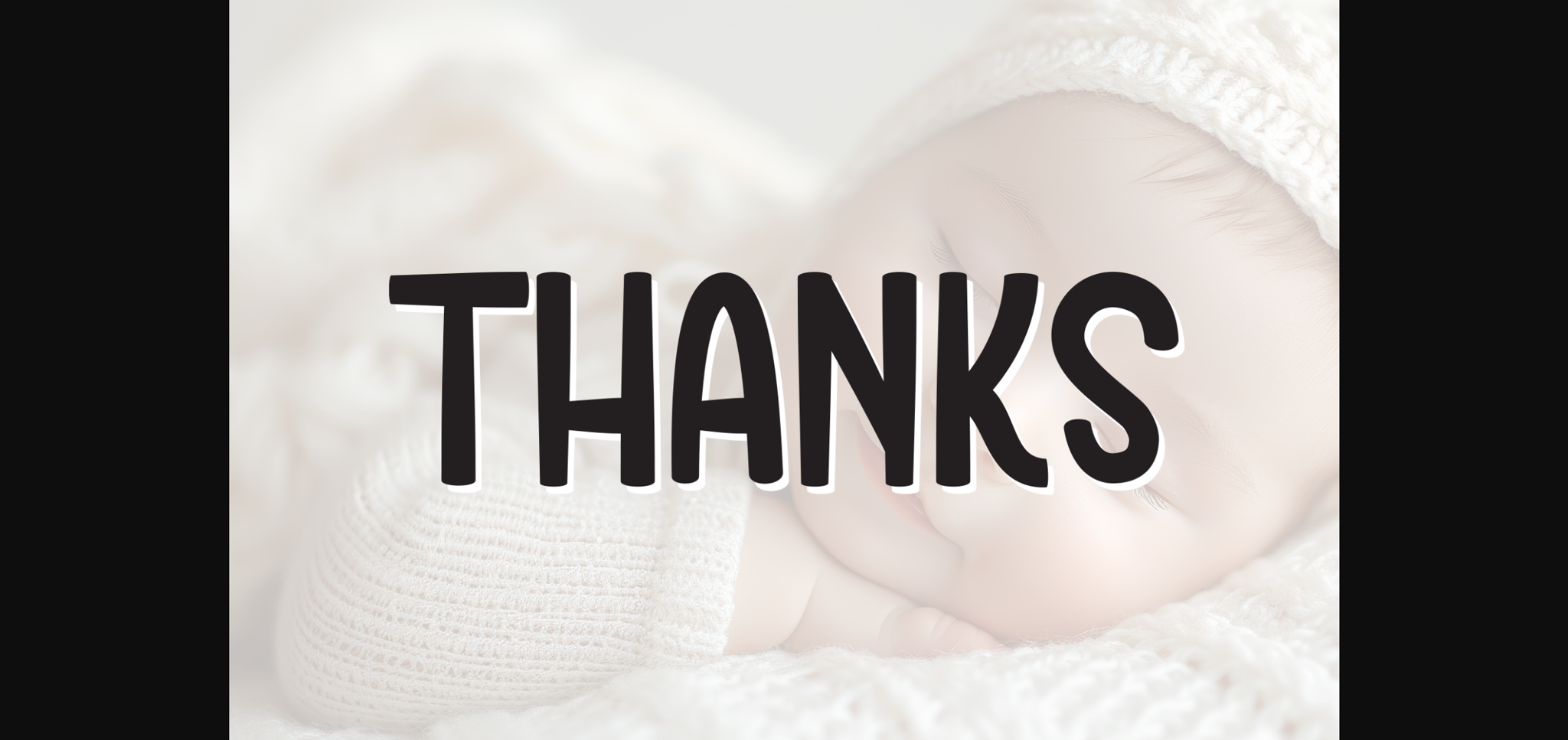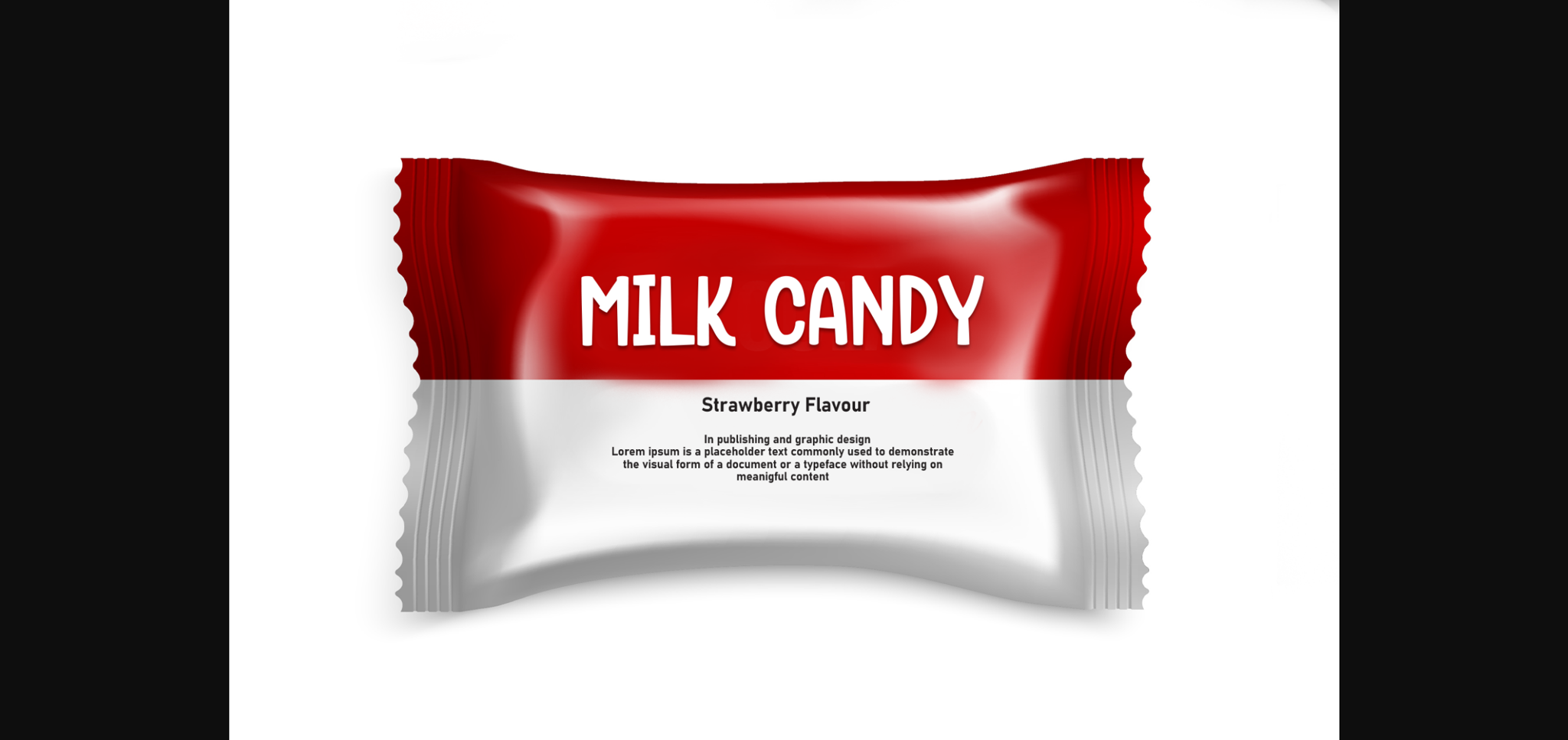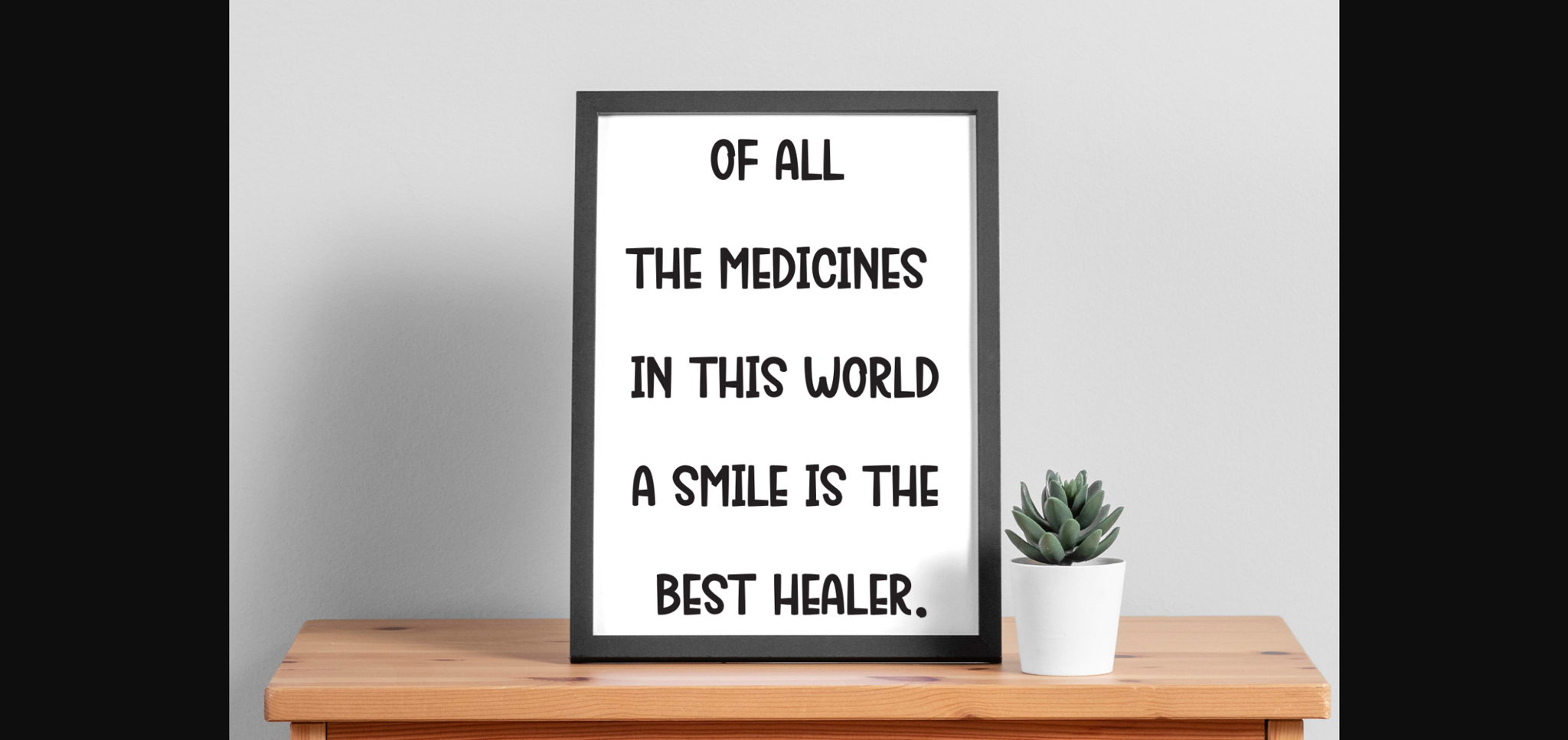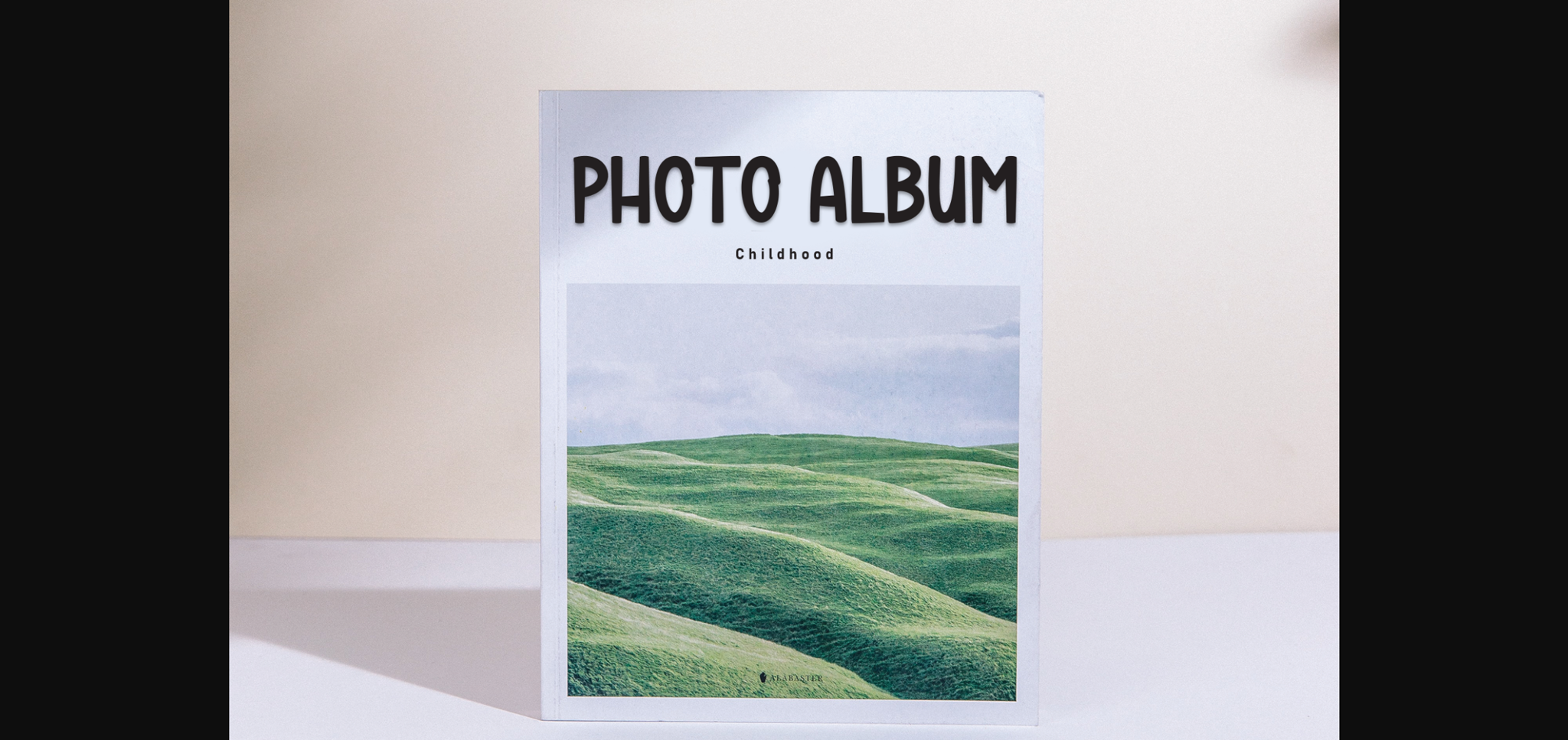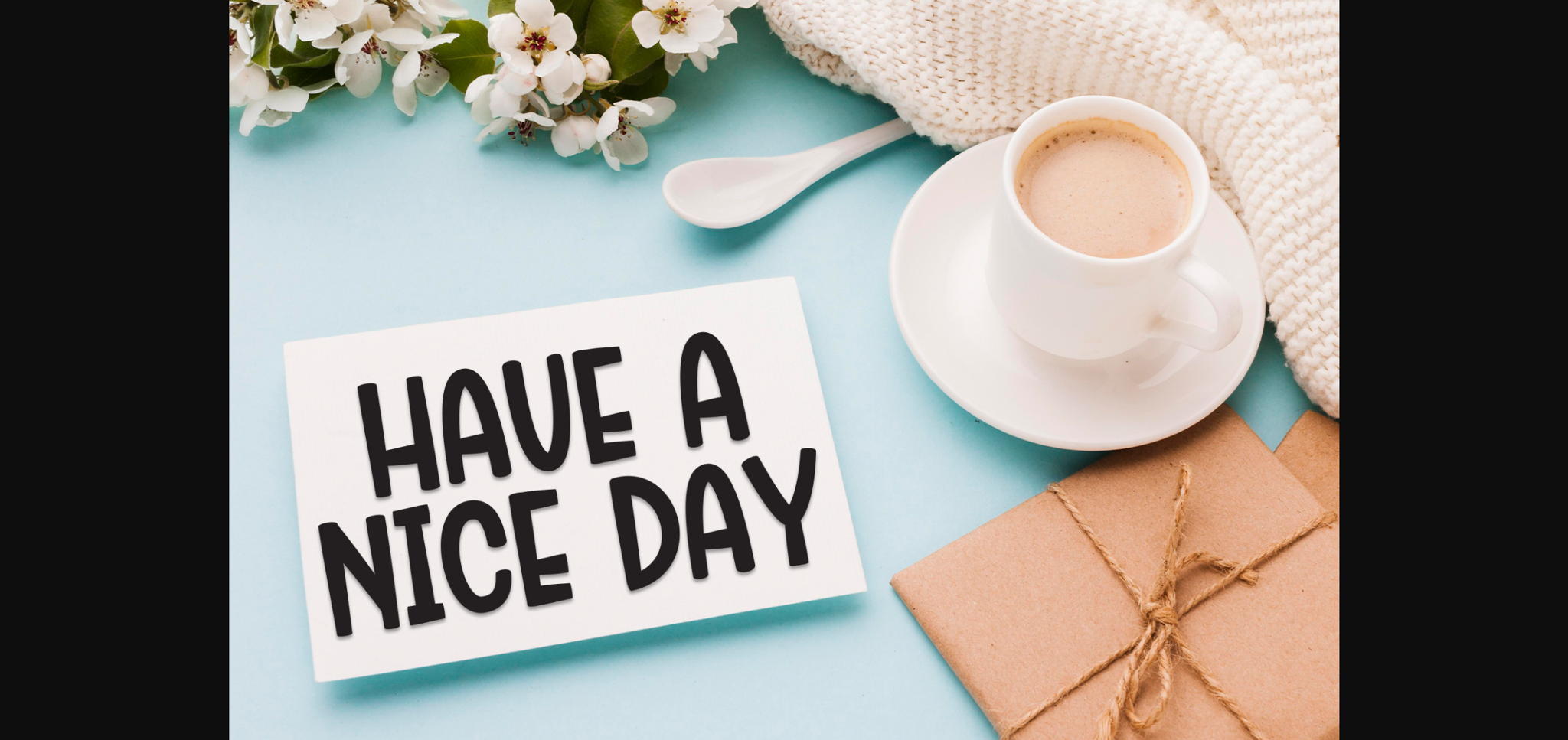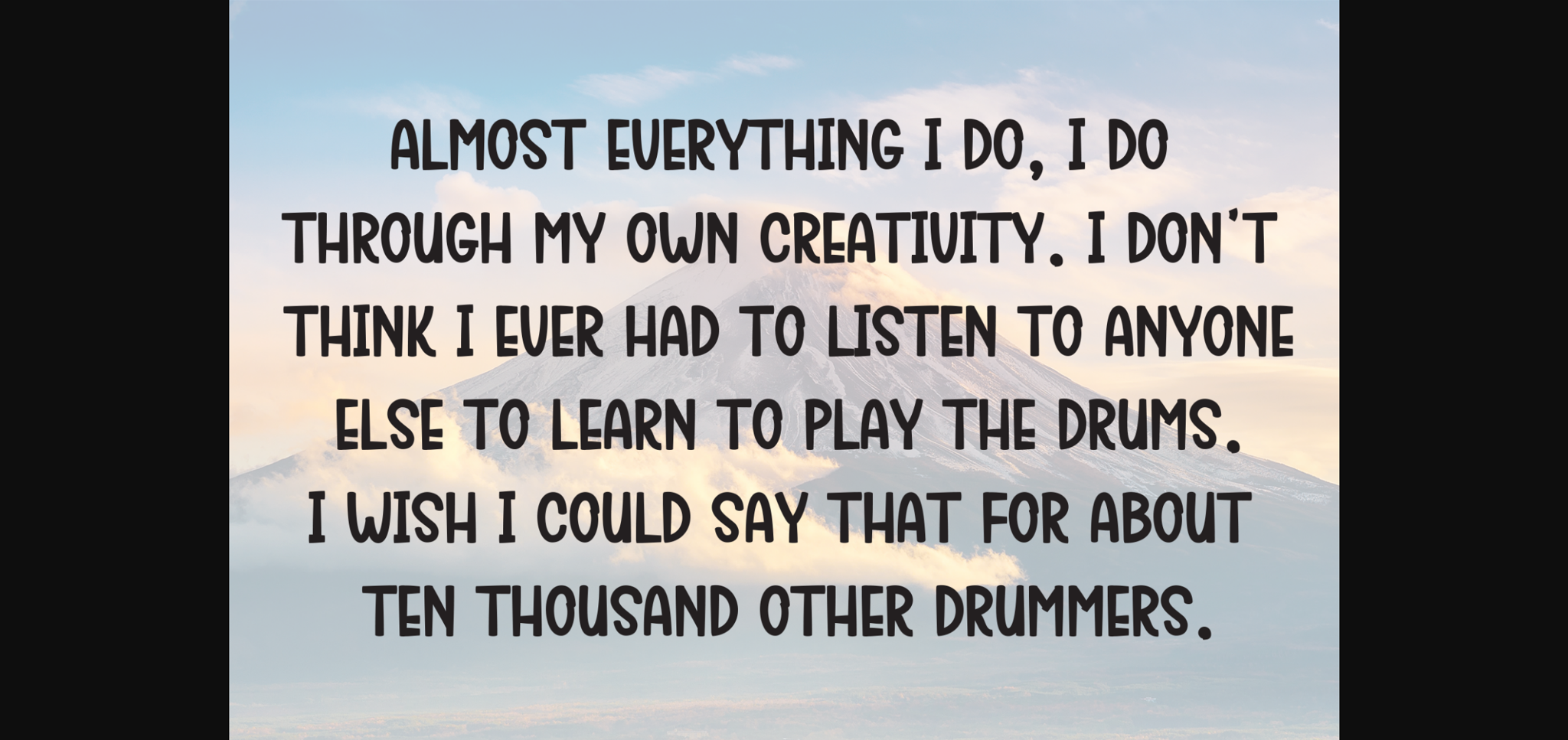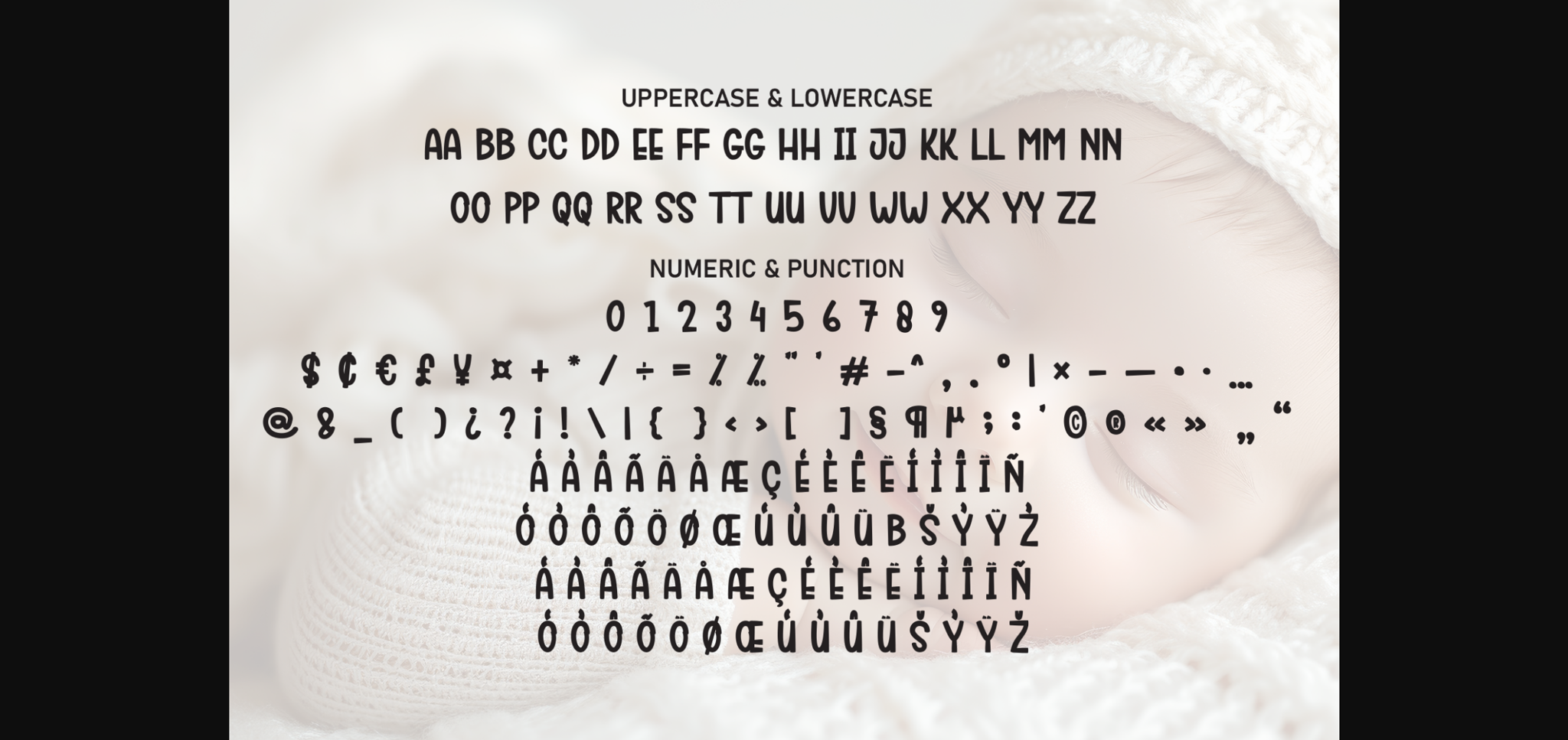
Baby Chubby Font
About Baby Chubby Font
Baby Chubby is a neat and casual sans-serif font that combines simplicity with a touch of warmth. With clean lines and balanced proportions, it exudes a friendly and approachable vibe. Perfect for various design projects, Baby Chubby brings a modern and versatile style to your typography repertoire.